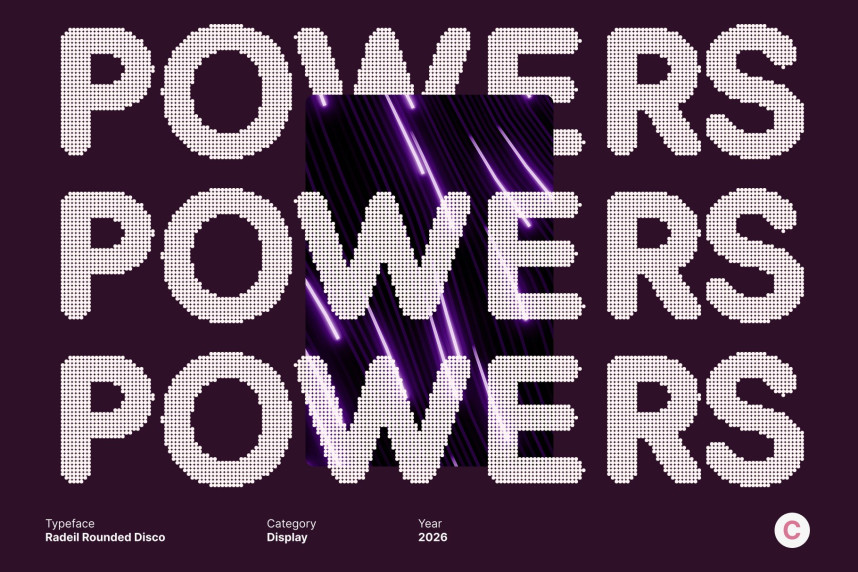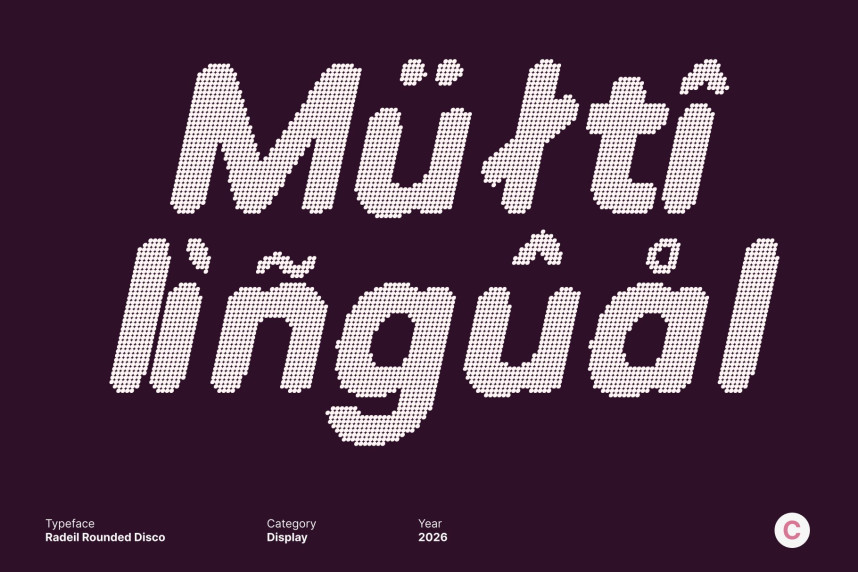
Radeil Rounded Disco Font
Radeil Rounded Disco Font – Friendly Softness with Festive Energy Soft Rounded Sans Serif with Disco Charm. This is a friendly sans serif font that blends soft, rounded letterforms with a lively disco-inspired spirit. Its low-contrast construction and smooth curves create an inviting, approachable look, while the disco style adds a touch of glamour, rhythm, and playful energy. The result is a typeface that feels warm, modern, and full of life.